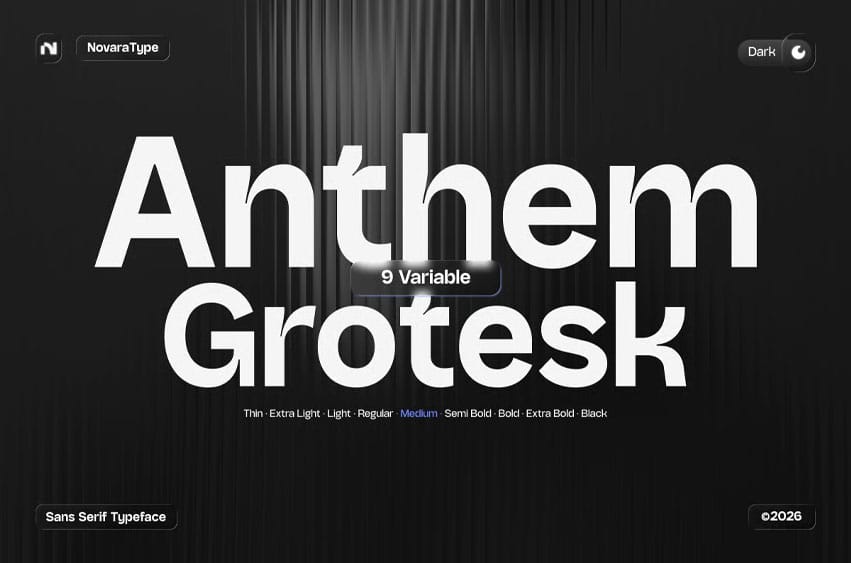
Anthem Grotesk Font is a contemporary sans grotesk typeface designed to deliver exceptional clarity, precision, and versatility across modern creative projects. Developed by NovaraType, Anthem Grotesk combines timeless grotesk proportions with refined modern details, creating a type system that feels both functional and distinctive. Whether used for branding, editorial design, digital products, UI/UX interfaces, or corporate identities, it provides a confident and highly legible visual presence.
Designed with consistency across every weight, NV Anthem Grotesk transitions effortlessly from impactful display typography to comfortable body text. Its clean geometry, balanced spacing, and neutral personality make it an excellent choice for designers seeking a dependable sans grotesk family that performs beautifully across both print and digital environments.